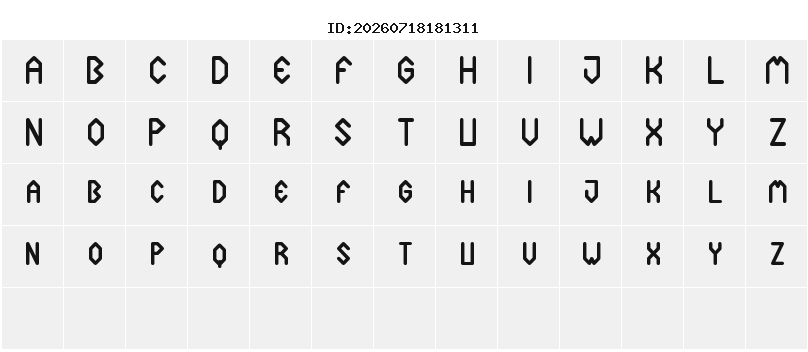
• Font Name: Cuadradex Simple St
About Cuadradex Simple St.ttf
Cuadradex Simple St.ttf is a modern, elegant sans-serif font designed for ultimate readability and visual harmony. Perfect for branding, headlines, web design, and print materials.